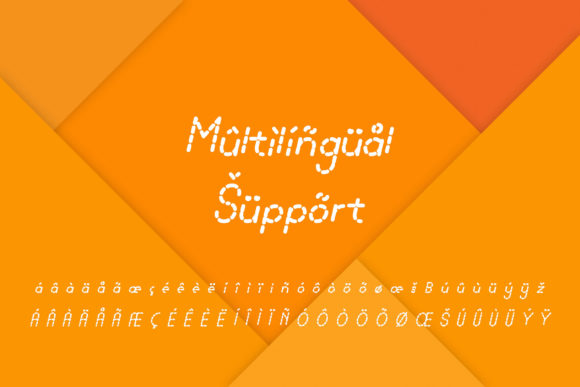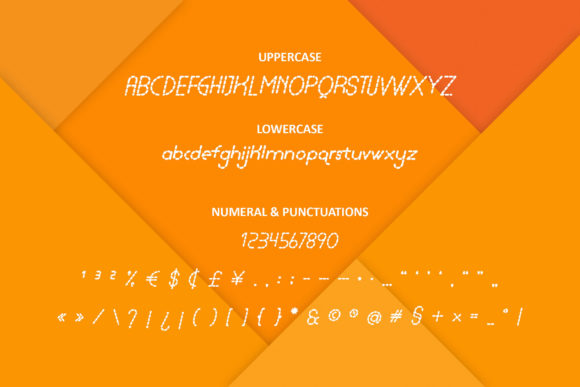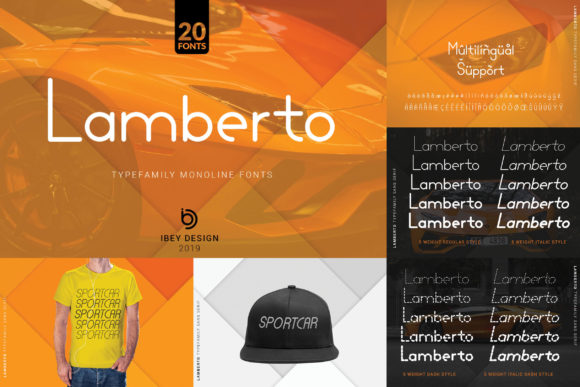
Introduction to Lamberto Bold Italic Dash Font Font
Fonts play a crucial role in design, and the Lamberto Bold Italic Dash Font font is a typeface that brings both character and versatility to any project. Whether you’re working on a branding project, a website, or a print design, the Lamberto Bold Italic Dash Font font offers a unique style that can elevate your work.
Lamberto Bold Italic Dash is a monoline display font with an incredibly bold and contemporary approach to classic lettering.
Key Features of Lamberto Bold Italic Dash Font Font
Why Choose Lamberto Bold Italic Dash Font Font?
The Lamberto Bold Italic Dash Font font is more than just a typeface – it’s a design tool that helps you communicate your message with style and clarity. Its unique character set and versatile design make it suitable for a wide range of applications, from elegant invitations to bold headlines.
With its carefully crafted letterforms and balanced proportions, the Lamberto Bold Italic Dash Font font ensures readability and visual appeal across all mediums.
What makes Lamberto Bold Italic Dash Font font special?
The Lamberto Bold Italic Dash Font font stands out with its unique design, exceptional readability, and versatility across various design applications.